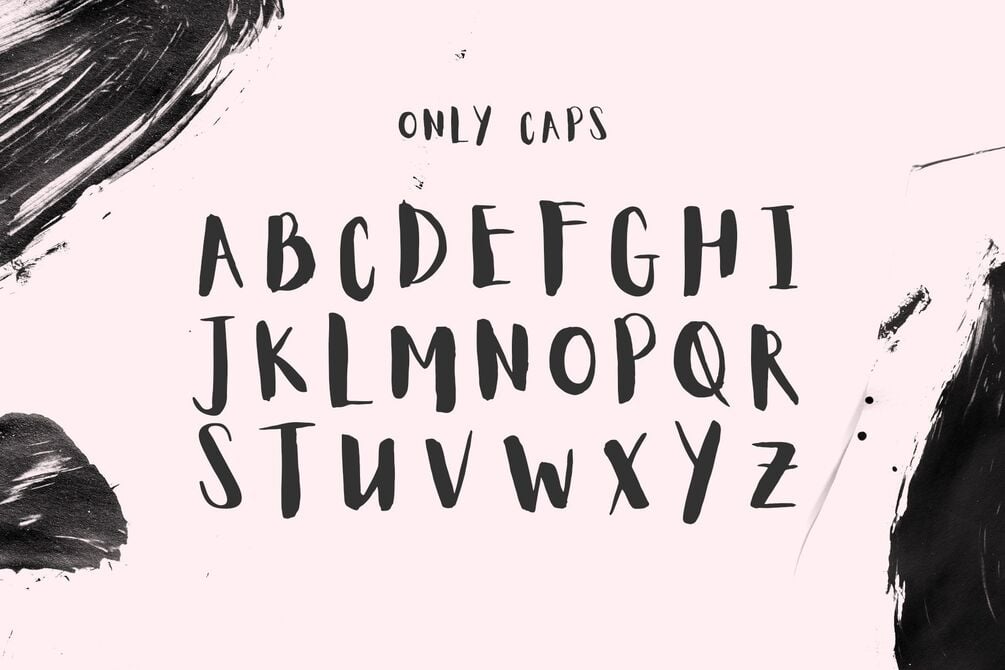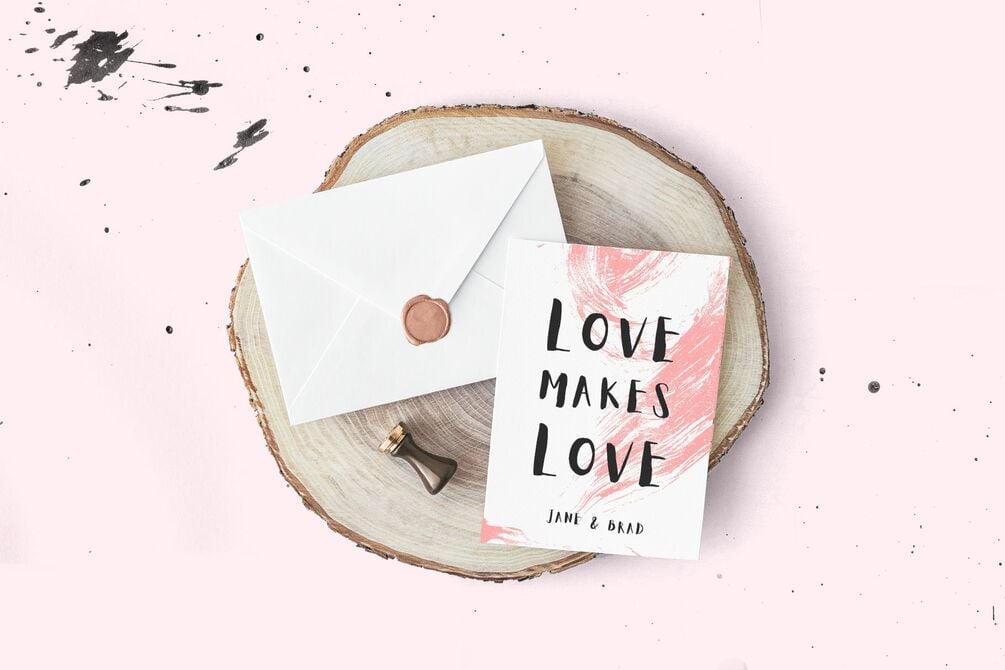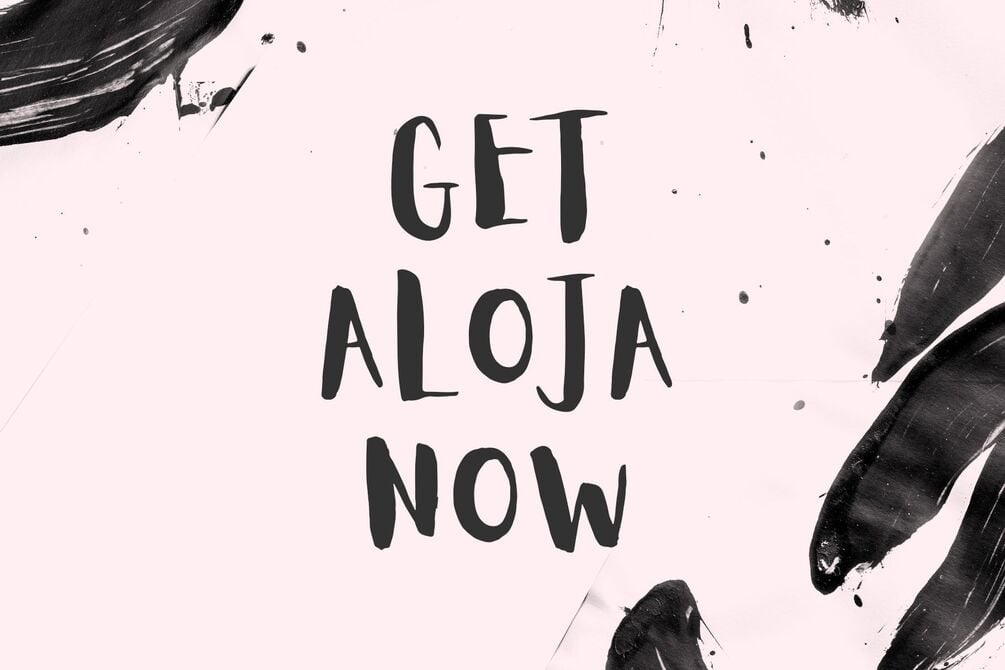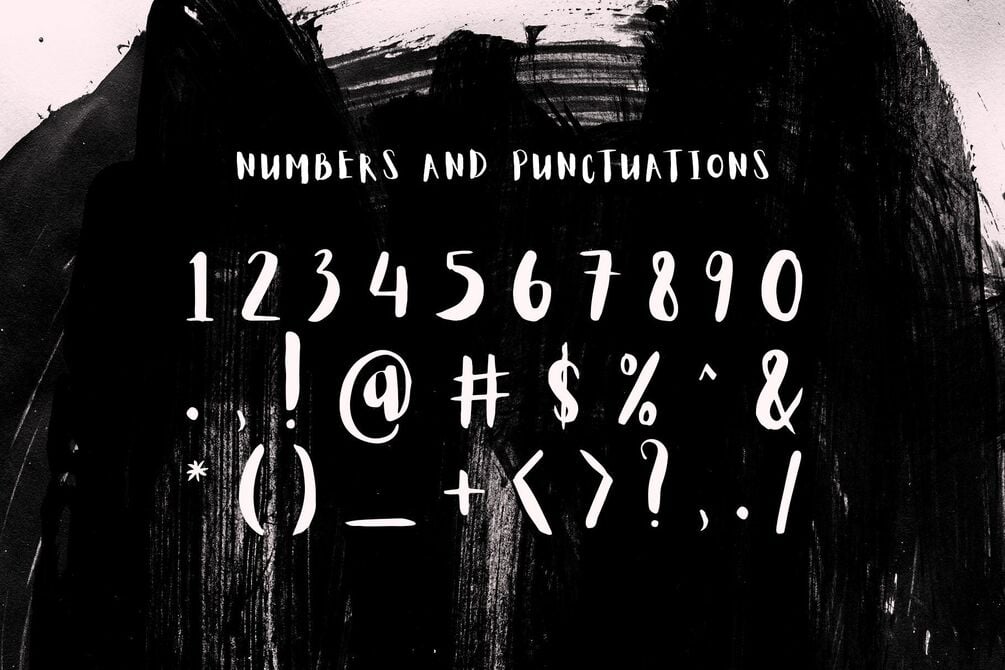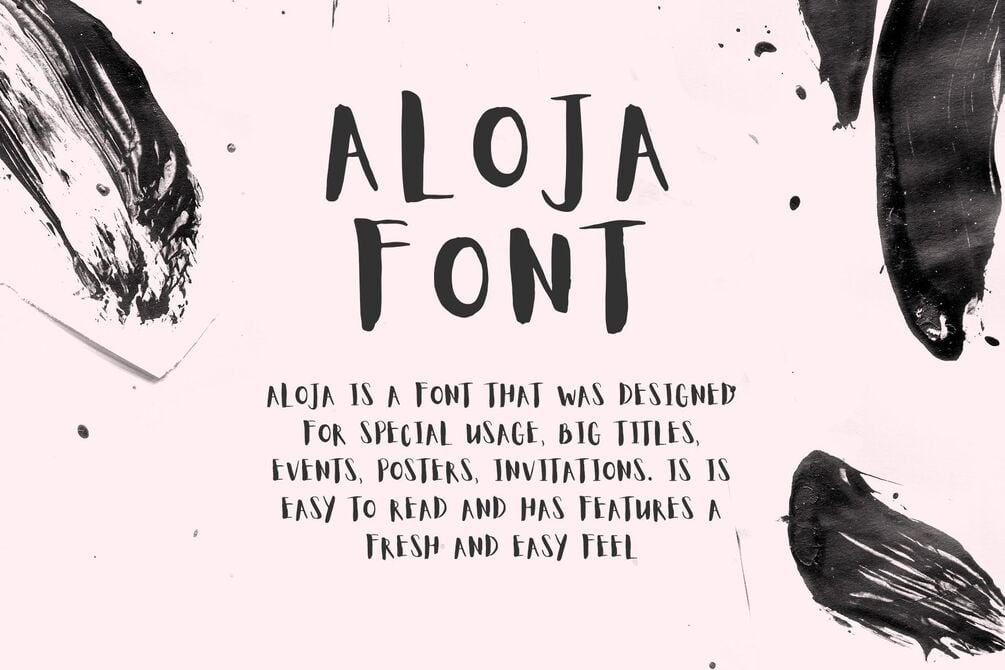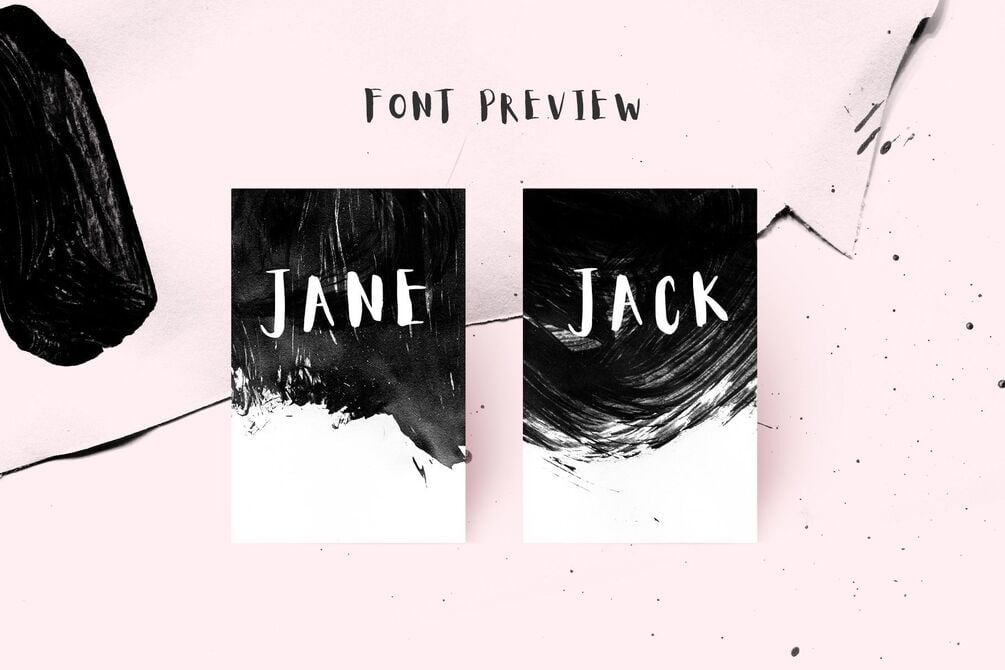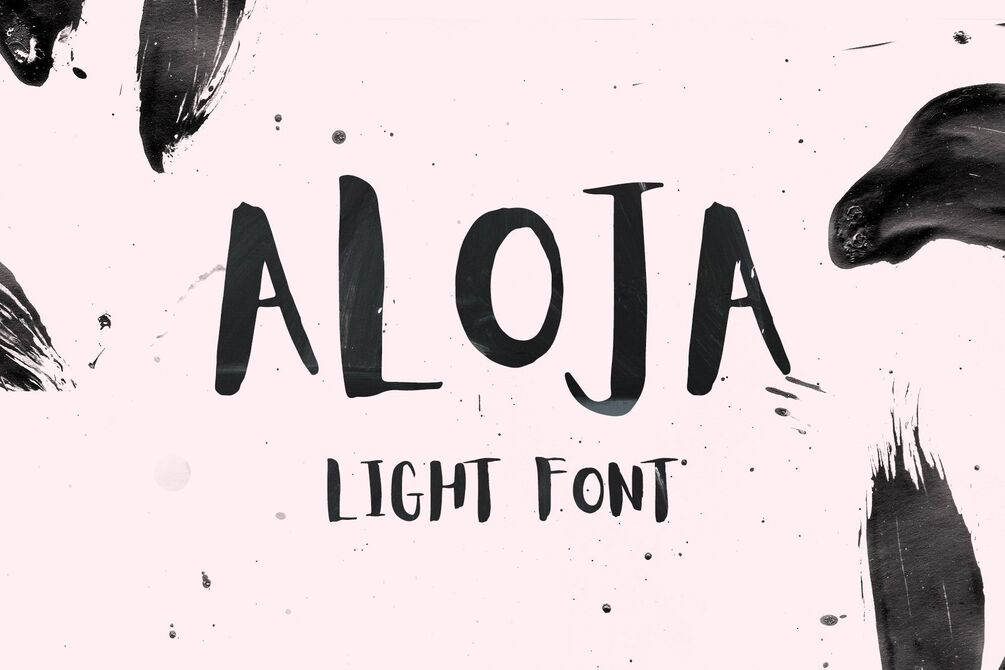
Aloja Free Handwritting Font
Aloja handwriting font was drawn by Ieva Mezule and put together by Krisjanis Mezulis. Aloja font can be used for - Big titles, events, posters, invitations and website, since there is also a .woff version. It is easy to read and features a fresh and easy feel. Every single letter is hand drawn with a thin brush on acrylic paper, this making the typeface visually unique. The playful letter bounces make it stand out from the crowd.